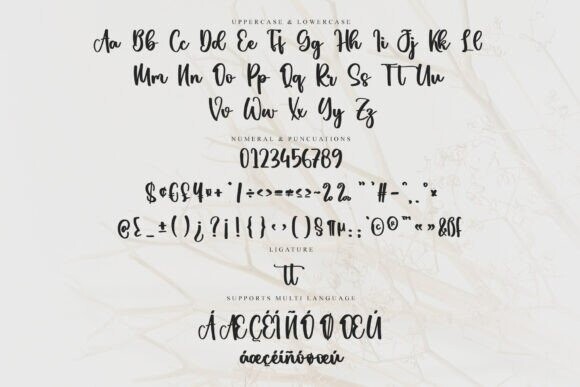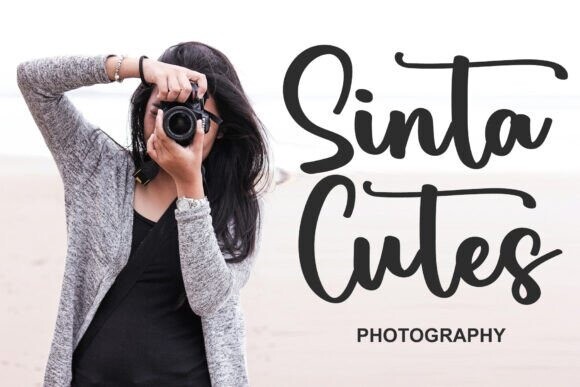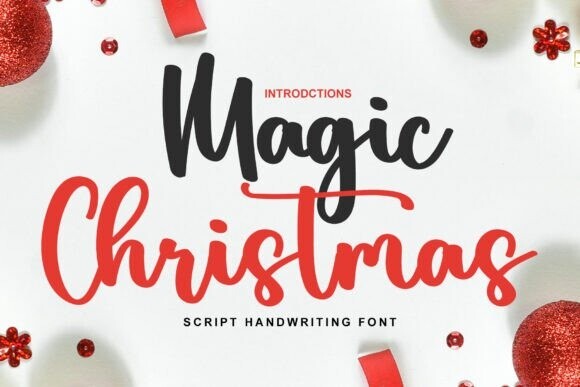
Magic Christmas Typeface
Designer: YanStudio
Magic Christmas Font is an elegant and delicate handwritten typeface. This is perfect for your various design needs, such as logos and branding, social media posts, advertisements, business cards, wedding invitation, product design, etc. This font is PUA encoded which means you can access all of the glyphs and alternates with ease!